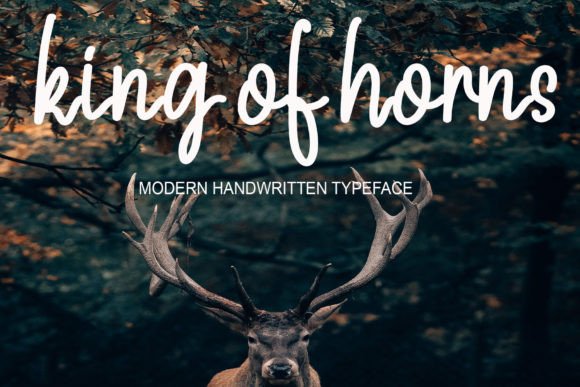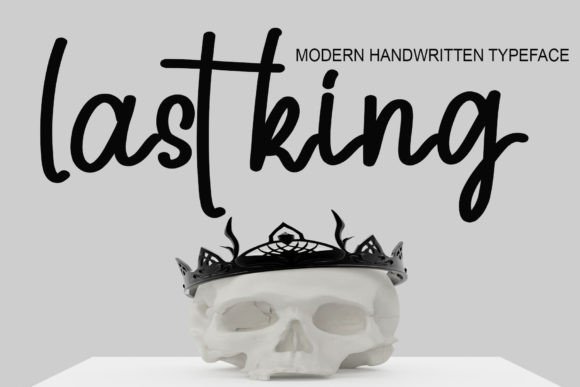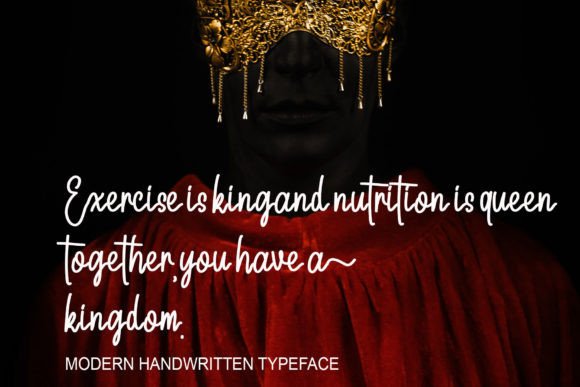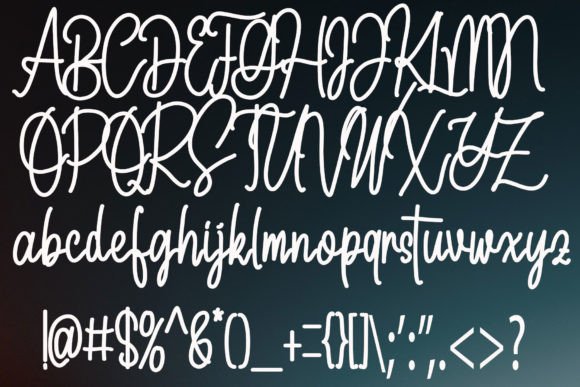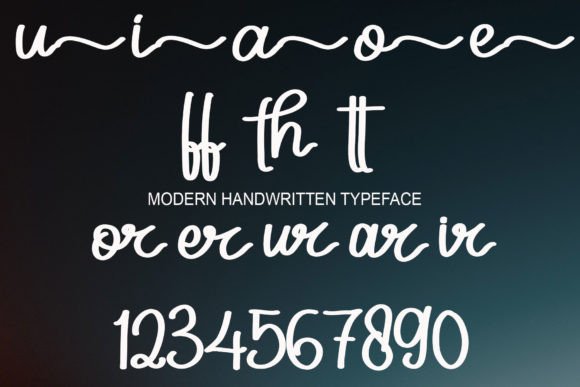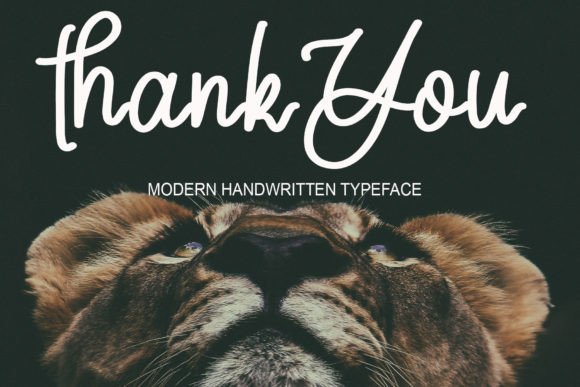
Discover the Elegance of King Sumbo Font
Do you remember that moment when you first saw a font that made your design come alive? For designers, it’s a moment of pure joy, and it’s exactly what inspired the creation of King Sumbo Font. This beautiful script font was crafted with love and care, written by hand using a tablet, to bring a touch of sophistication to any project.
King Sumbo Font is perfect for a wide range of applications, from websites and wedding invitations to business cards and advertisements. Its simple yet stylish design makes it a valuable asset for designers looking to add a unique touch to their work. Whether you’re working on a product advertisement or a personal project, King Sumbo Font is sure to impress.
King Sumbo Font Key Features
- Font Family: King Sumbo is a custom-designed font family, offering a unique blend of modern and traditional elements.
- Character Set: Supports a wide range of languages, including Latin, Cyrillic, and Greek alphabets, making it suitable for global branding and design projects.
- Resolution: Designed to be scalable, King Sumbo font is optimized for high-resolution displays, ensuring crisp and clear typography in various screen sizes and resolutions.
- Unique Characteristics: King Sumbo font features a distinctive, hand-crafted aesthetic with intricate details and subtle flourishes, adding a touch of elegance and sophistication to any design.
Designer Review: King Sumbo Font
Overall, I think King Sumbo Font is a solid choice for designers looking for a unique, handwritten font. ✨ Here are some of its strengths:
- It has a very natural, hand-written feel that’s perfect for creative projects.
- The font is highly legible, even at smaller sizes.
- It’s available in a range of weights and styles, making it easy to customize.
- The font includes a wide range of characters, including accented letters and punctuation.
- ⚠️ The font may not be suitable for formal or professional projects, as it has a more casual, creative feel.
- ⚠️ Some of the characters may be a bit inconsistent in their spacing, which can affect readability.
- ⚠️ The font may not be as versatile as some other fonts, as it’s specifically designed for handwritten text.
Overall, I think King Sumbo Font is a great choice for designers who want to add a personal touch to their projects. While it may have some limitations, its unique feel and high level of customization make it a solid choice for creative projects.
Getting the Most Out of King Sumbo Font
For optimal results, use King Sumbo Font in combination with bold and italic styles to add emphasis to your text.
Experiment with different font sizes and line heights to create visual interest.
Use King Sumbo Font in headings and titles to create a cohesive brand identity.
King Sumbo Font is ideal for:
Creating eye-catching headings and titles.
Designing modern and sleek brand identities.
Adding a touch of elegance to your text-based designs.
Alternatives to King Sumbo Font
Open Sans is a highly versatile and readable sans-serif font. It is designed to be used in a wide range of applications, from body text to titles and headings. Open Sans is a great alternative to King Sumbo Font as it offers a similar clean and modern look, but with a more neutral and approachable feel.